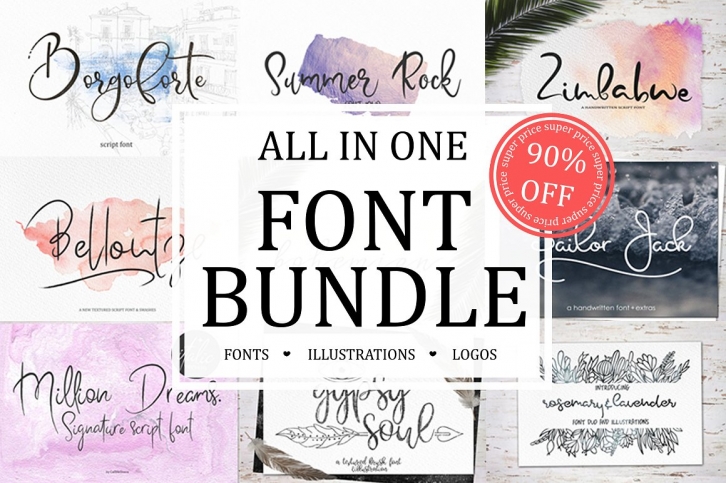
Bundle Sale is a trendy and unique font with an authentic style. It was designed by CallMeStasya and it's a great choice for creative people who need such a font. It was released on September 18, 2018 and the file size is 9.23 MB. Bundle Sale will add an organic vibe to any design idea!